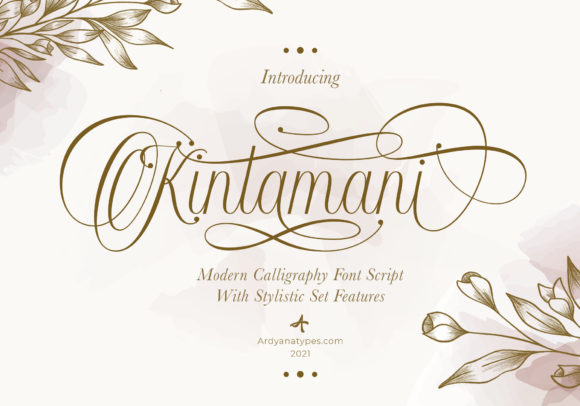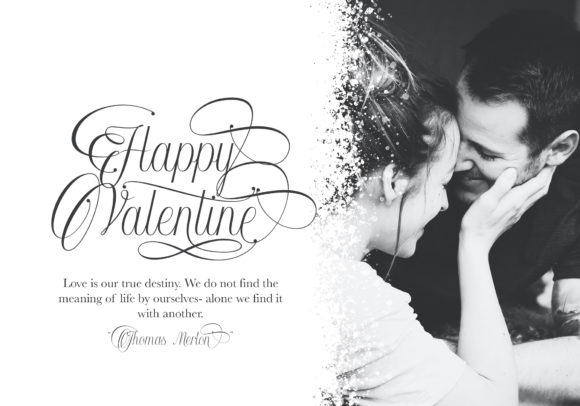
About Kintamani Font
Kintamani is an enchanting and versatile handwritten font that captures the essence of romance and elegance. With its delicate and flowing strokes, Kintamani is perfect for a wide range of design projects, from greeting cards to headlines and everything in between.
The graceful curves and charming style of Kintamani make it ideal for adding a touch of romance and sophistication to any project. Whether you’re designing wedding invitations, love letters, greeting cards, or any other romantic-themed materials, Kintamani will evoke a sense of enchantment and allure.
The font’s PUA encoding allows for easy access to a wealth of beautiful glyphs and swashes, giving you the freedom to add decorative elements and create unique variations. This feature enables you to customize your designs and make them truly one-of-a-kind.
Kintamani’s versatility extends beyond romantic themes. Its elegant and captivating appearance also makes it suitable for various other projects, such as branding, packaging, social media graphics, book covers, and more. The font’s ability to add a romantic feel to any design, coupled with its adaptability, makes it a valuable asset to your font library.
Incorporate Kintamani into your next project, and watch as it elevates your designs with its enchanting and versatile charm. Whether you’re a seasoned designer or just starting, Kintamani’s appeal and ease of use make it a delightful choice for capturing the essence of romance in your creations. Embrace the enchantment of Kintamani and let your designs come alive with elegance and romance.